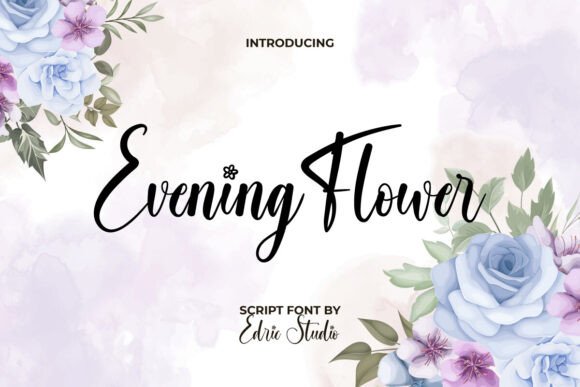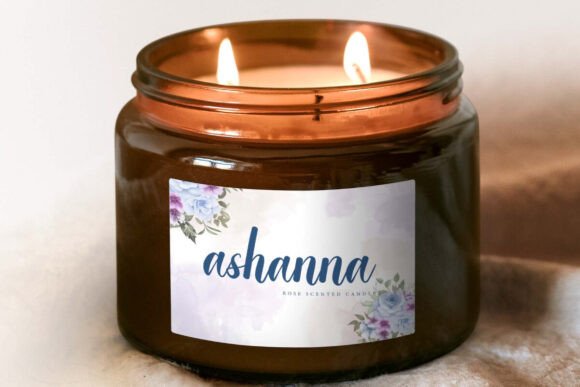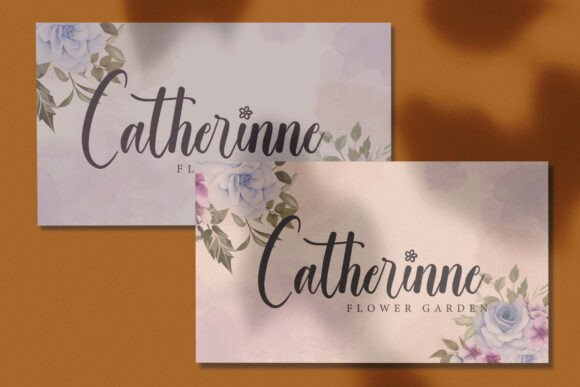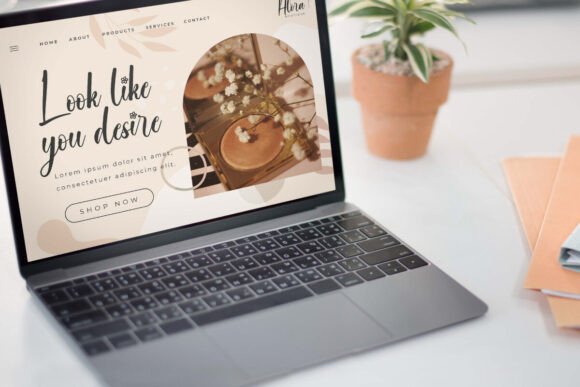
Evening Flower Font: Elegant Script for Wedding Invitations
About the Evening Flower Font
Unleash your creativity with Evening Flower Font, a versatile font perfect for a wide range of applications. Evening Flower Font is a beautiful script typeface with a charming calligraphic style. Its flowing lines resemble petals dancing in the wind, bringing a fresh and elegant touch to any design. This font is perfect for a wide range of applications, including billboards, branding, brochures, custom designs, flyers, greeting cards, headers, invitations, labels, packaging, posters, screen printing, signage, stationery, stickers, titles, website pages, and more.
Evening Flower Font enhances visual appeal and is ideal for businesses in various industries, such as accessories, advertising, beauty products, fashion, floristry, homeware, interior design, real estate, and event or wedding planning. The font includes a full set of uppercase and lowercase characters, numbers, punctuation, symbols, and ligatures.
Evening Flower Font Usage Examples
Evening Flower Font Example